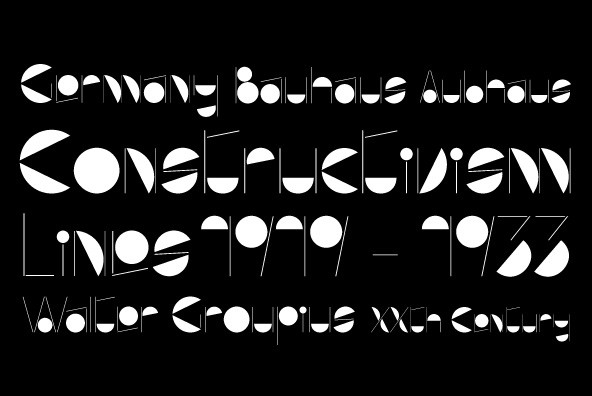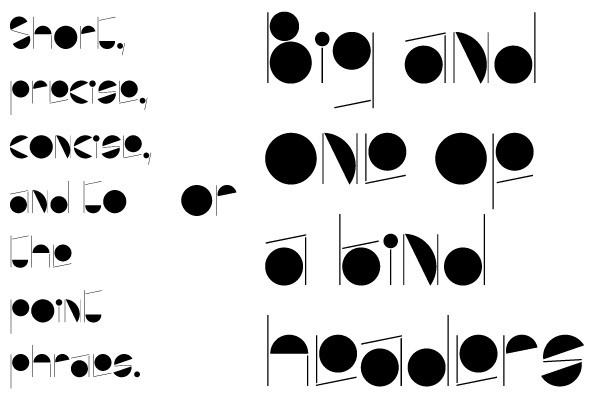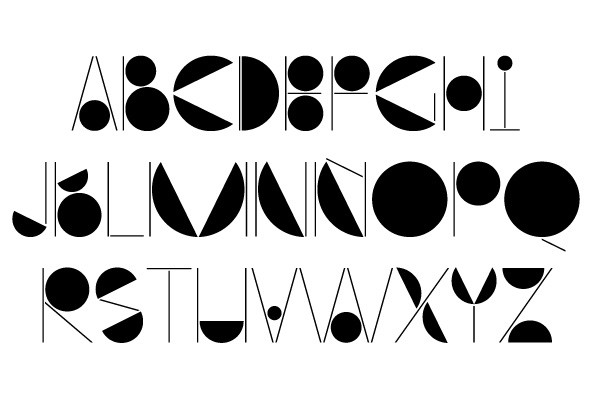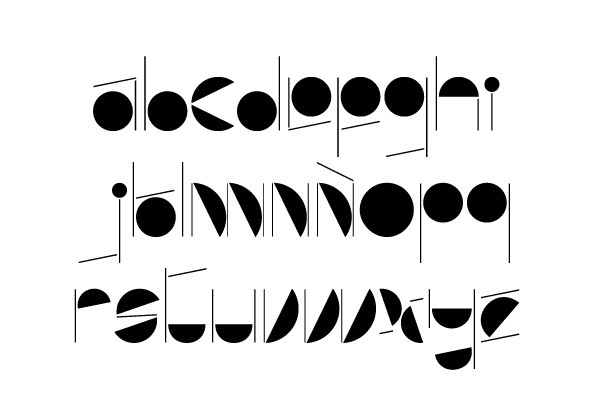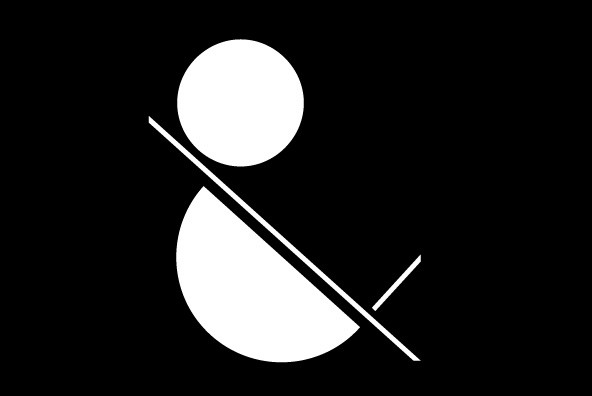
Aubhaus is a constructivist and geometric font. Great for use as a big display font on titles and short texts. It features Latin and Non Latin Characters.